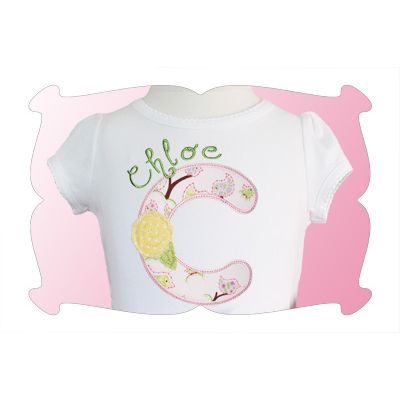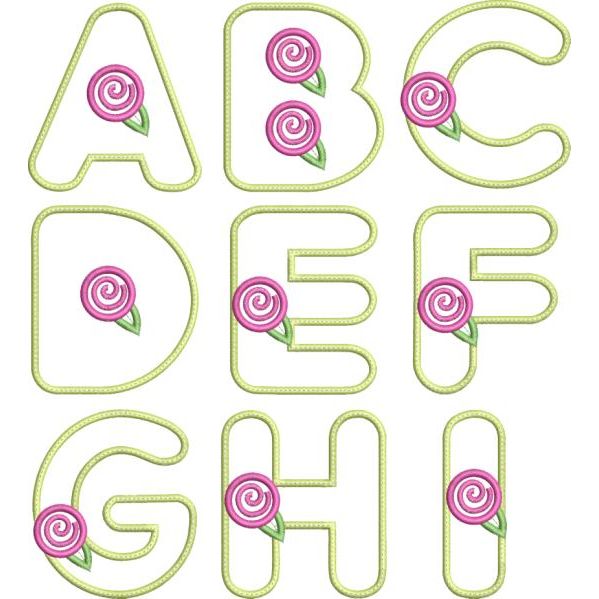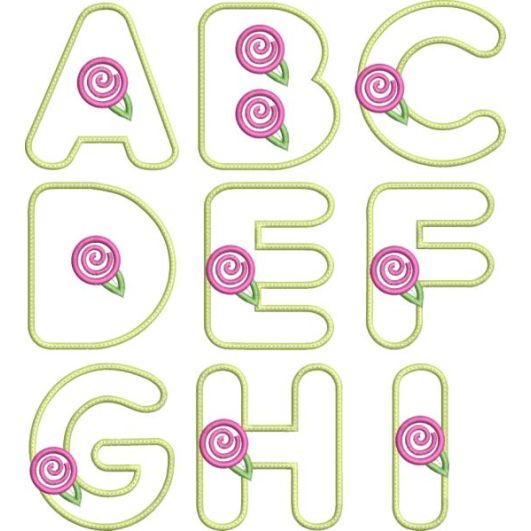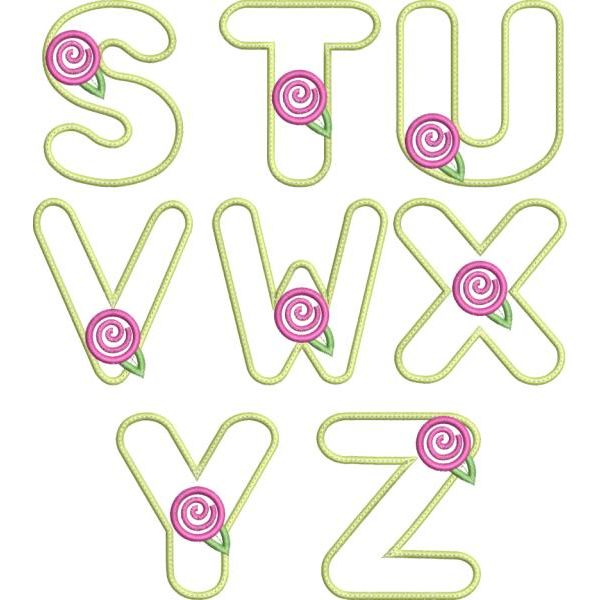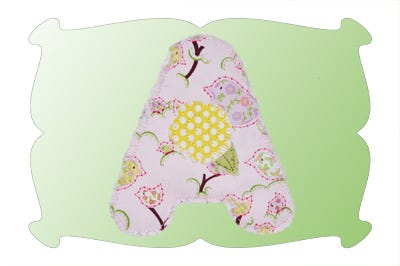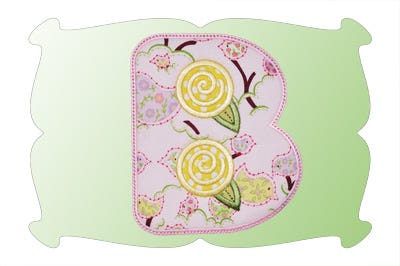
Rosebud Satin Stitch Applique Monogram Embroidery Font
Rosebud Applique Font
Comes in both Raggy Edge and Satin Stitch.
Such a sweet look for any little girl!
You can make this font totally raggy edged as shown on the letter A.
Or make the font with just a raggy edged flower as shown on the letter C.
If you prefer a satin stitch font, as shown on the letter b you can do that too!
All designs come in Raggy Edge and Satin Stitch.